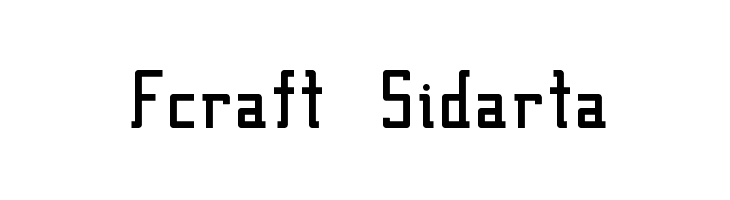
A decorative font inspired by Jawi script, featuring intricate ornamental details.
A bold, geometric, and condensed font with a modern, futuristic style.
A bold, condensed font with a modern, futuristic style and semi-straight structure.
A bold, cartoonish font with a 3D shadow effect and playful style.
A whimsical, decorative font with playful ink-like patterns.
A modern, expanded italic font with a sleek and stylish appearance.